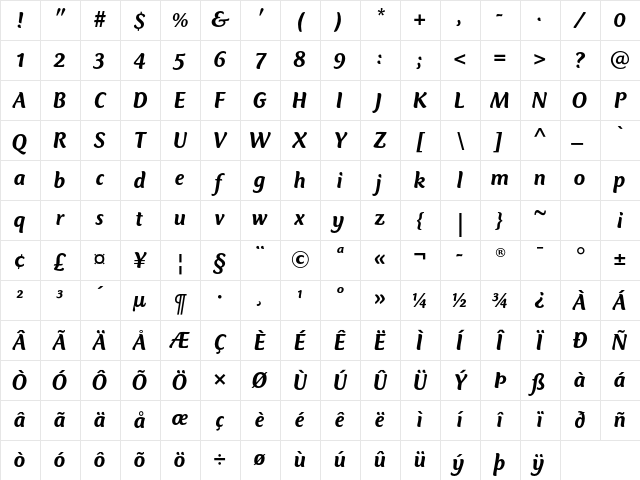
Mercurius CT Std Medium Italic
Designer: Adrian Williams
Design Context for Mercurius CT Std
Mercurius CT Std is a composed and adaptable typeface that performs quietly and consistently across a wide range of design contexts. The slanted form adds forward momentum and visual energy.
Pro Tip: Use Mercurius CT Std for emphasis, pull quotes, and subheadings where its slanted energy can add rhythm to the layout.